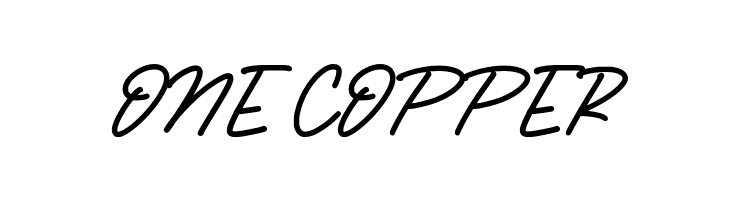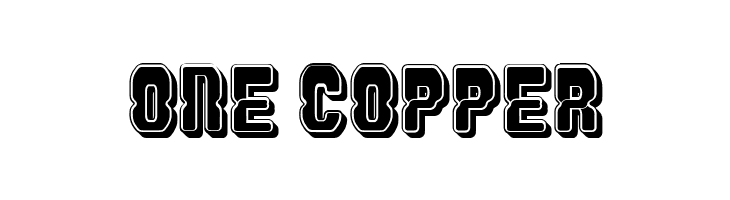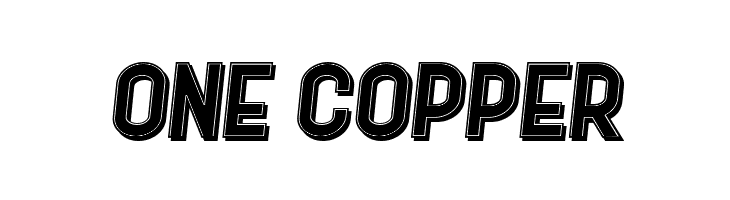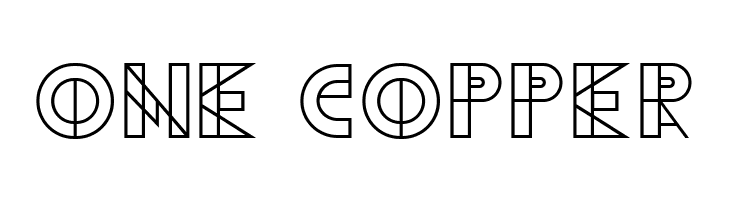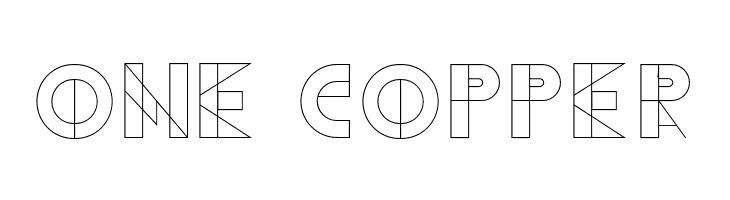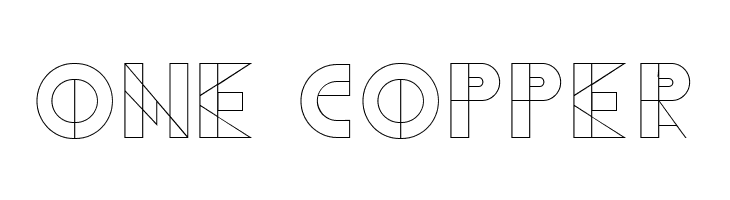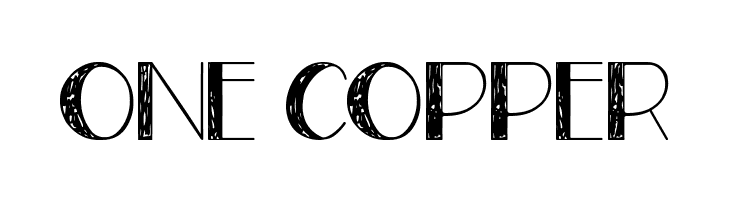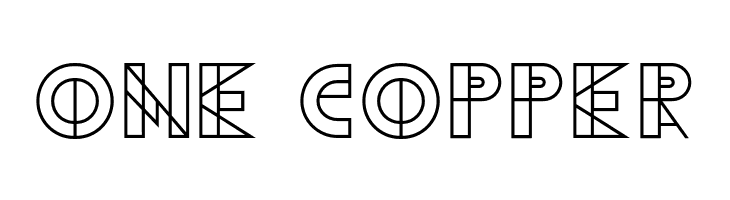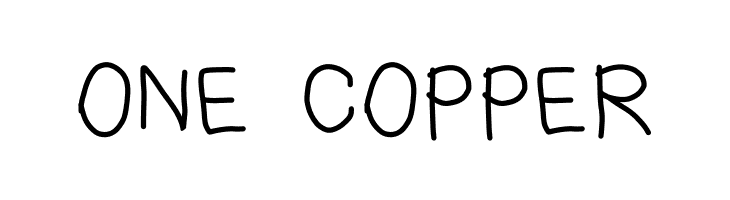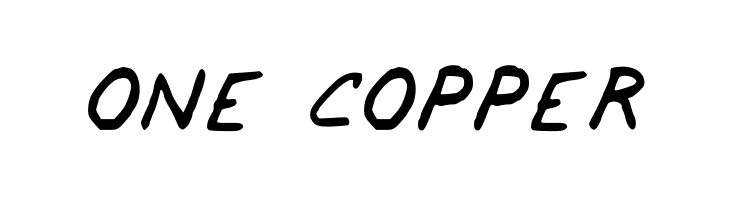
A bold, geometric font with a three-dimensional, retro-futuristic style.
A lively and expressive handwritten font with fluid, cursive letterforms.
A sleek, modern font with geometric design and thin strokes.
A bold, 3D decorative font with a playful and dynamic style.
A dynamic cursive font with bold strokes and elegant flow.
A whimsical, hand-drawn font with playful, quirky elements and spiral motifs.
A bold, playful font with a quirky, hand-drawn style.
A playful, hand-drawn font with a textured, artistic style.
A playful, hand-drawn font with a textured, sketch-like appearance.
A delicate, flowing script font with elegant, elongated letterforms.
A lively cursive font with a fluid, handwritten style.
A geometric, modern font with clean lines and a minimalist aesthetic.
A modern, rounded font with a geometric structure and friendly appearance.
A geometric, minimalist font with thin lines and a modern, futuristic style.
A geometric and modern font with a clean, futuristic design.
A geometric, extra-light font with a minimalist and modern design.
A geometric and modern font with a futuristic design and clean lines.
A fluid, handwritten script font with elegant, connected letters.
Bold, italicized font with outlined, three-dimensional characters.
A playful, hand-drawn font with a whimsical and informal style.